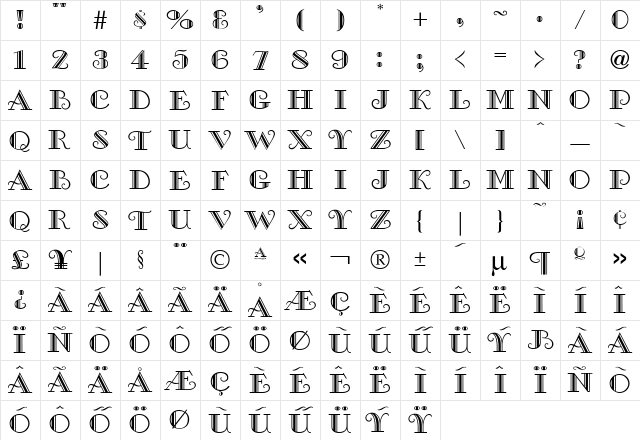
Galleria Regular
Galleria Family
Design Context for Galleria
Galleria is a composed and adaptable typeface that performs quietly and consistently across a wide range of design contexts.